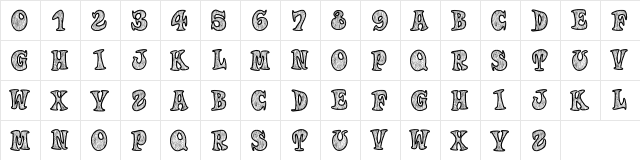
Woodys Regular
Design Context for Woodys Typeface
Woodys echoes the hand-painted signage and woodblock typography of the American frontier, with a warm, rugged personality.
A natural fit for craft spirits, ranch branding, rodeo events, and Americana-inspired design work.
Font Pairing: Combine Woodys with a simple slab or neutral sans — period-accurate companions reinforce the vintage feel without competing for attention.
Pro Tip: Use Woodys for short, impactful bursts of text — it shines in poster headlines and product names rather than extended copy.